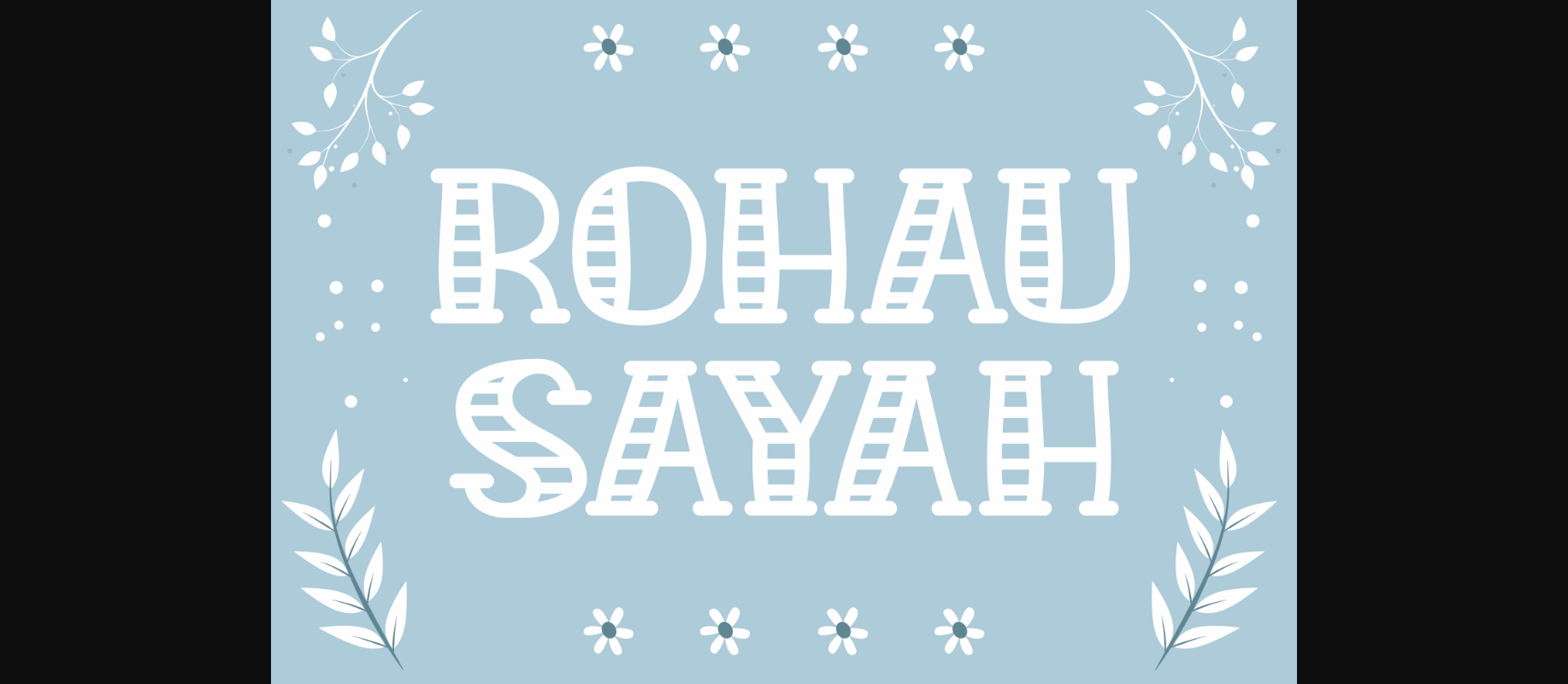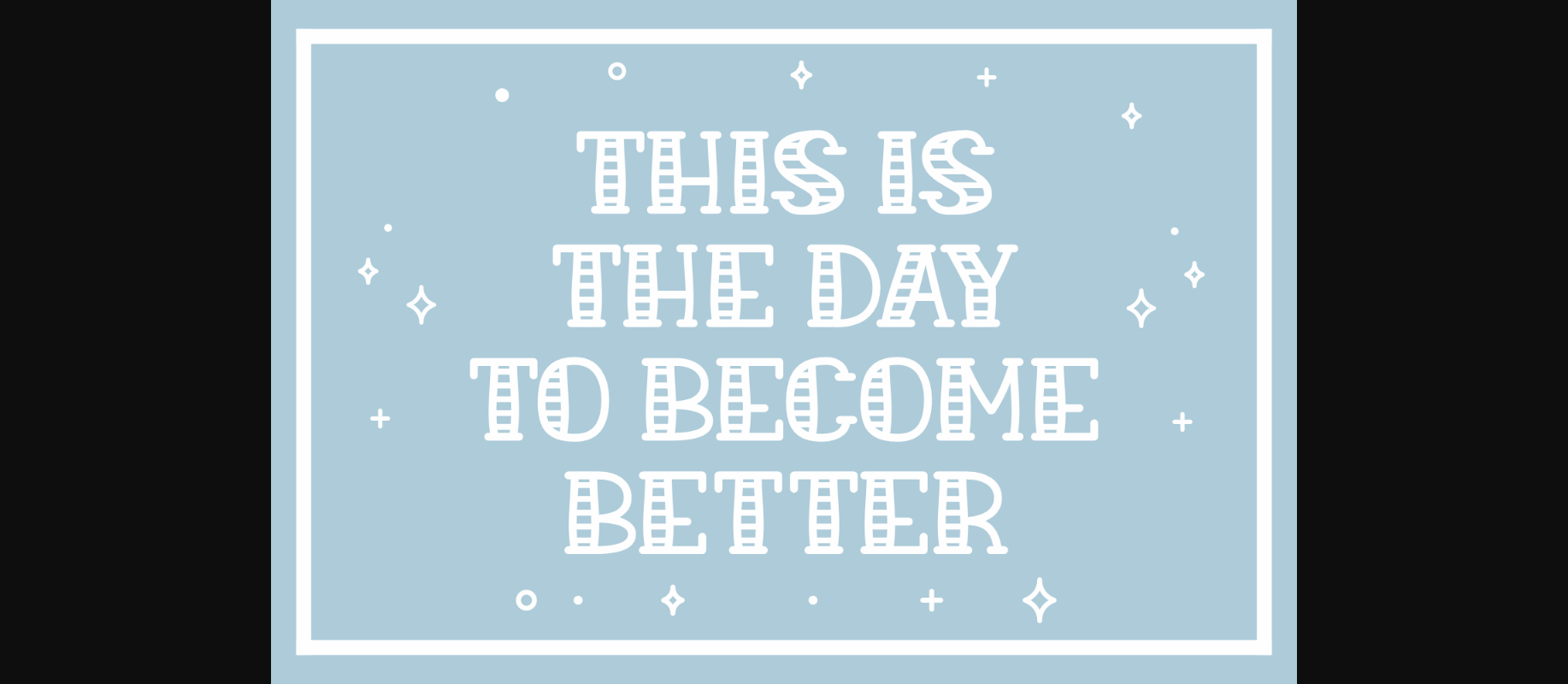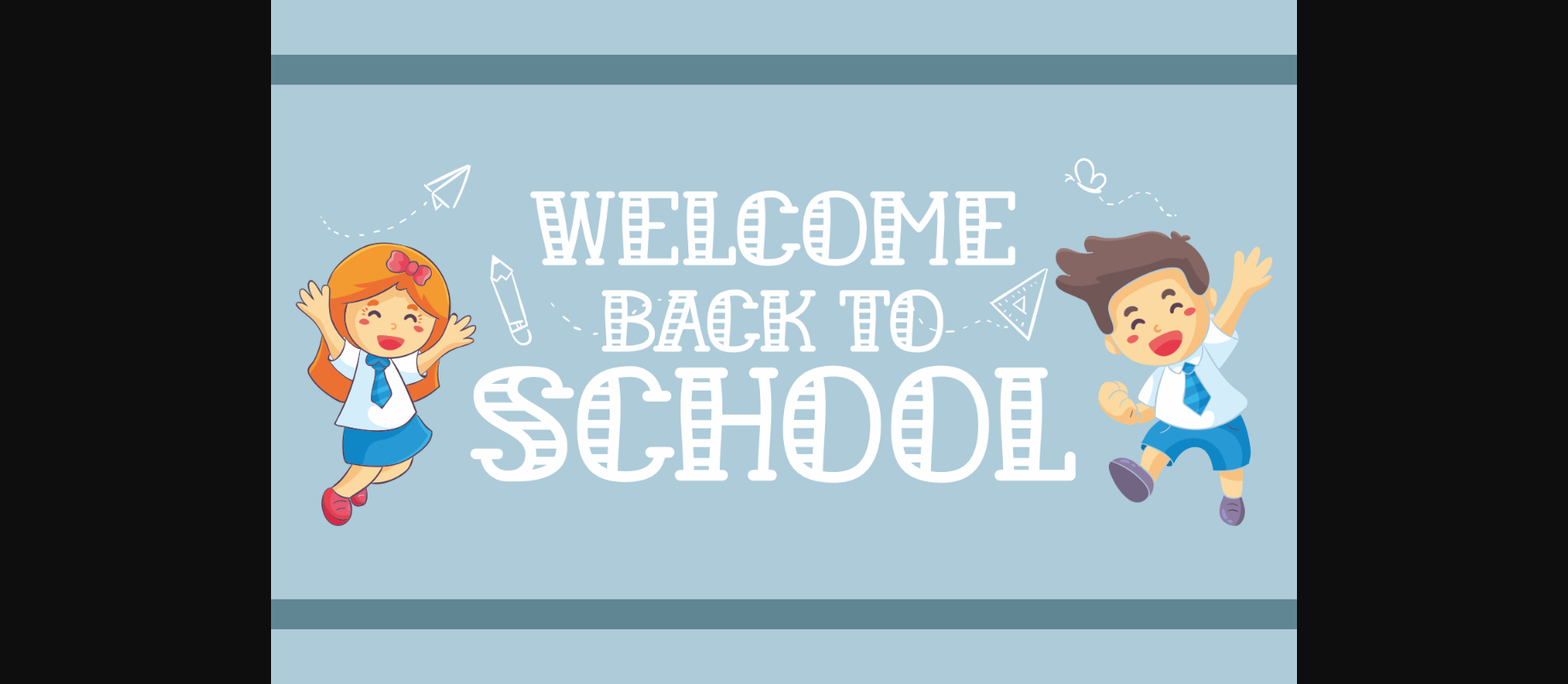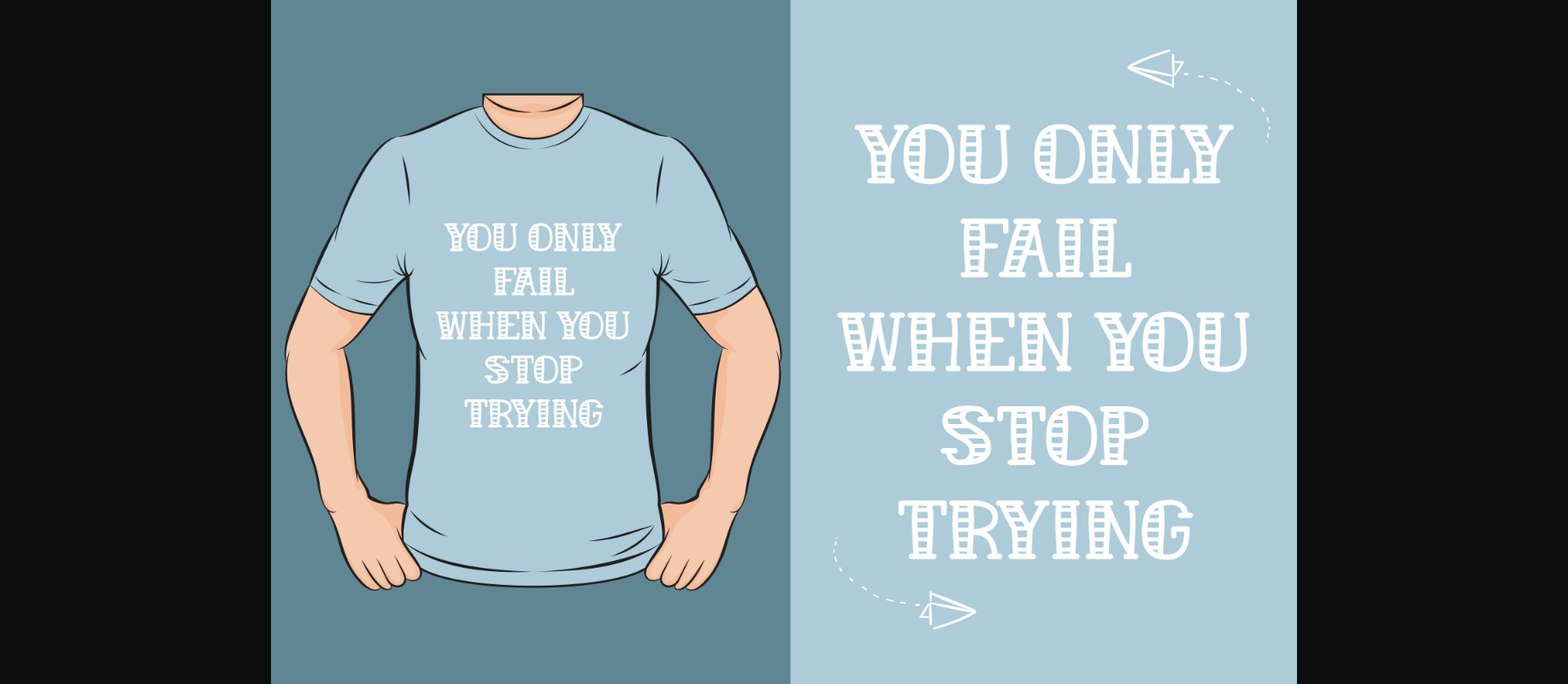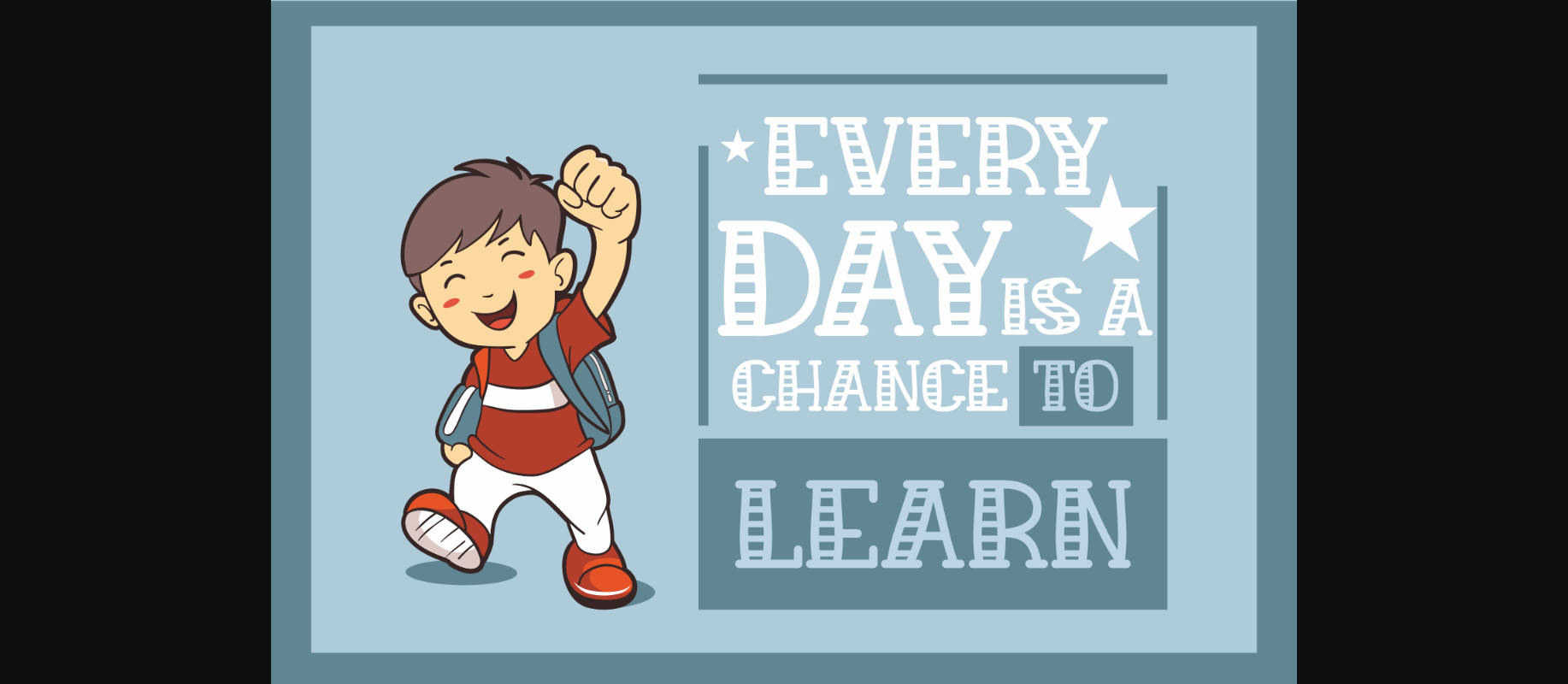
Rohau Sayah Font
About Rohau Sayah Font
Rohau Sayah is a beautiful decorative font with a joyful touch. It’s fun and playful and would be perfect for your next DIY project, stickers, t-shirt design, branding, kid’s clothes, and so much more.